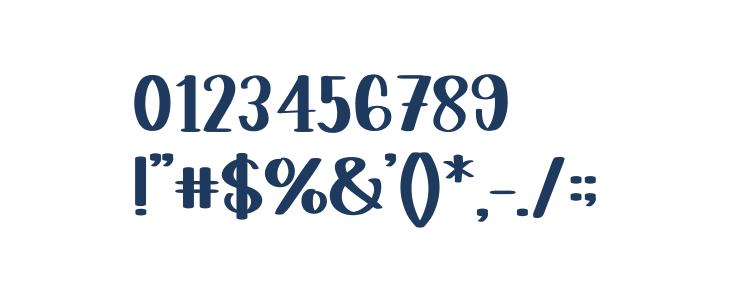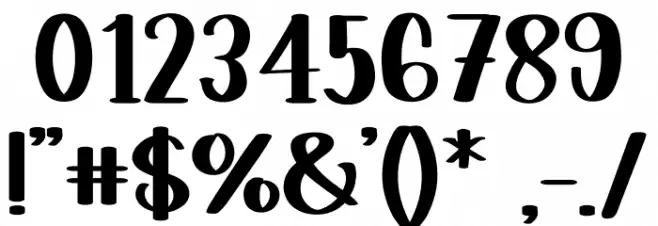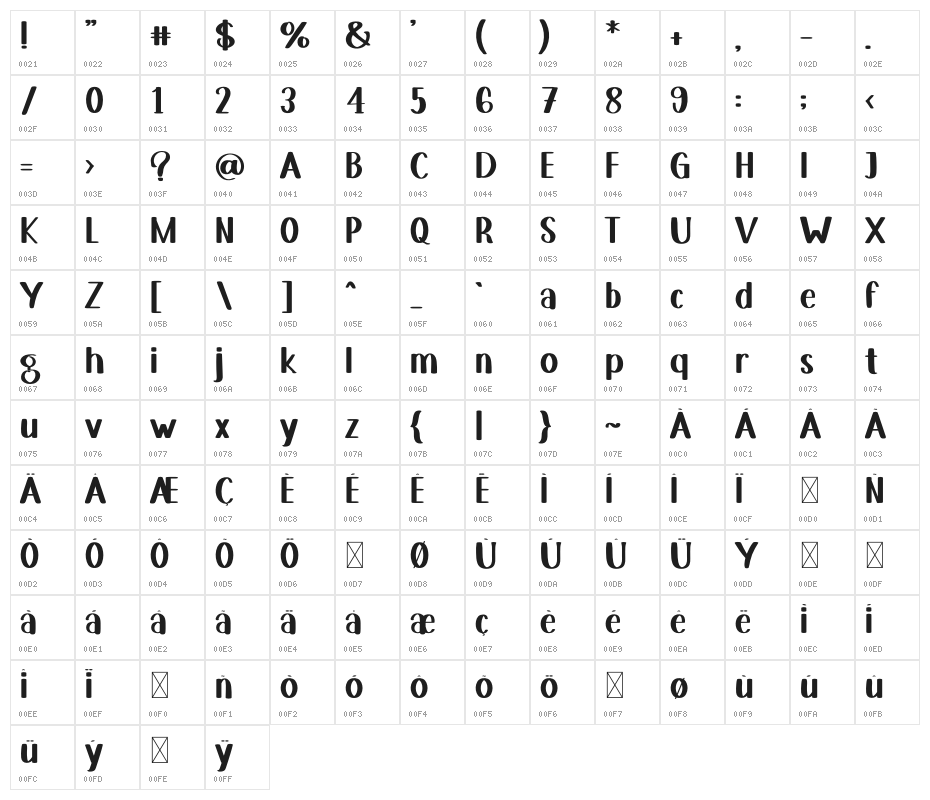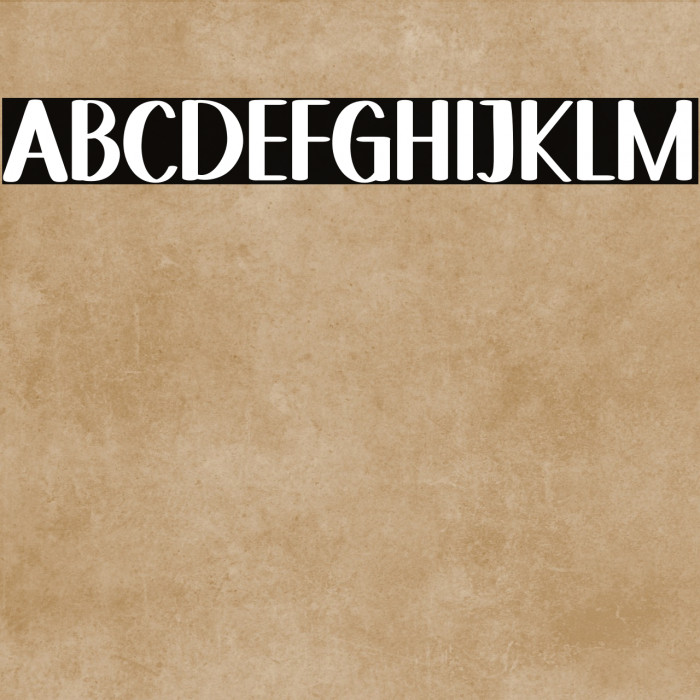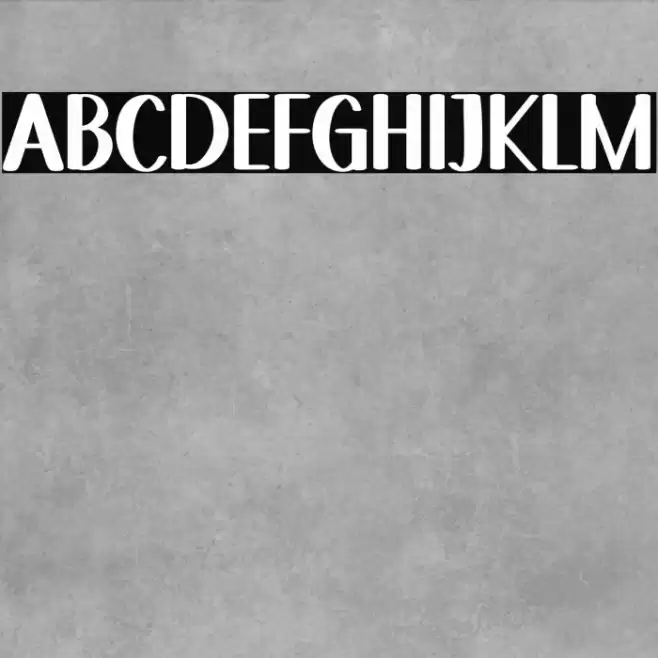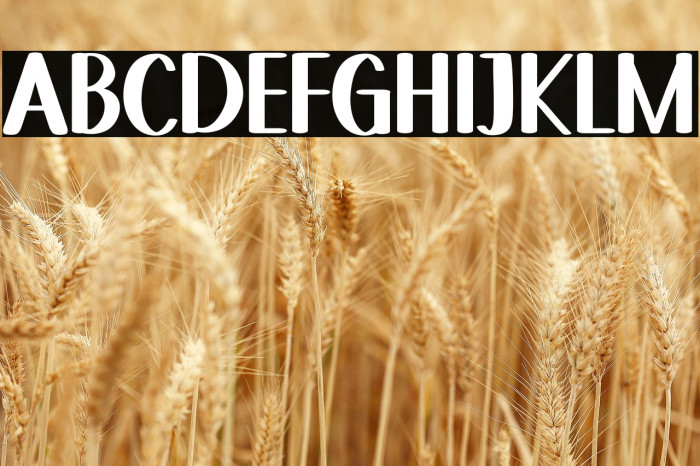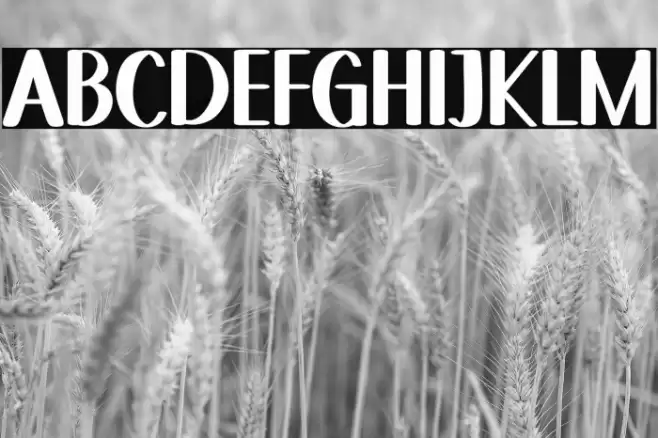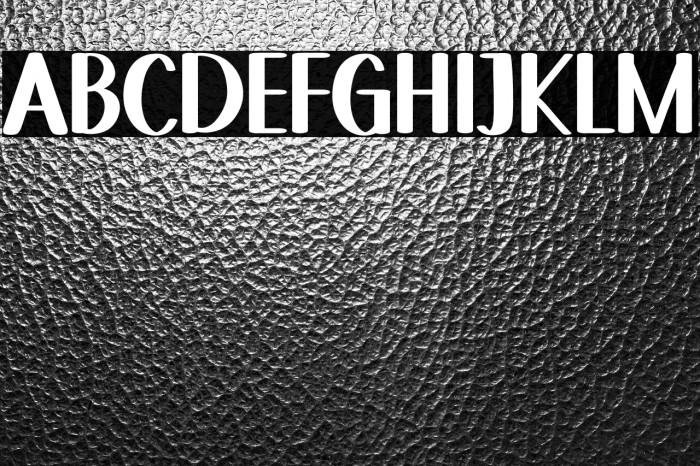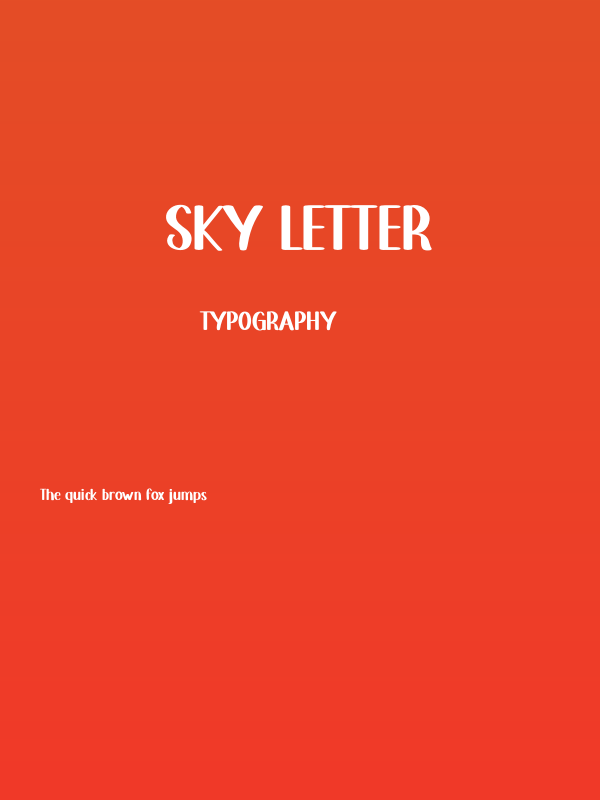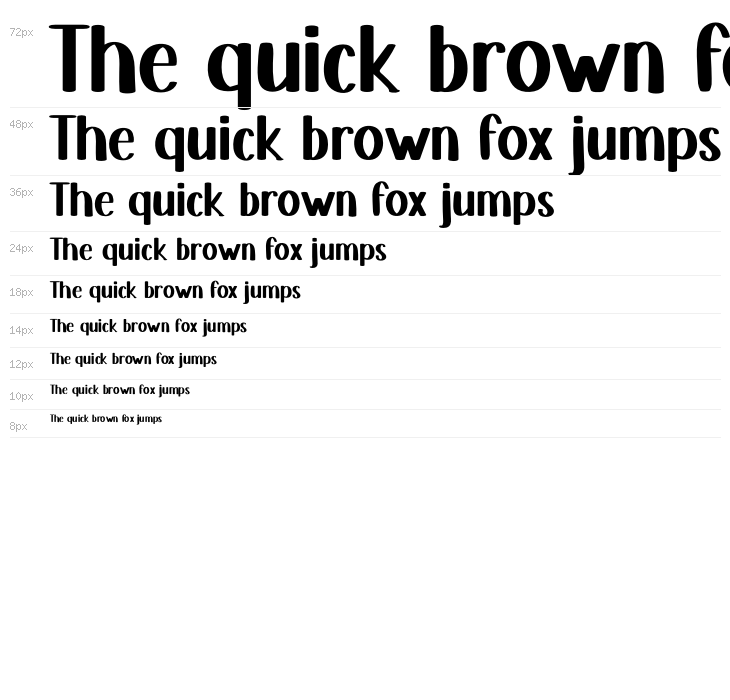
Sky Letter Font
Sky Letter Description
This font features a playful and bold style with a unique blend of rounded and angular elements. The uppercase letters exhibit a strong presence with slightly condensed forms, while the lowercase letters maintain a whimsical and approachable feel. The numerals are consistent with the overall design, offering a clear and legible appearance. Special characters are creatively integrated, enhancing the font's versatility. The strokes are consistent in weight, providing a harmonious look across all characters. This font is ideal for projects that require a fun and engaging aesthetic.
| Overall Style | Playful, Modern |
| Proposed Projects | Ideal for children's books, playful branding, posters, and creative advertising. |